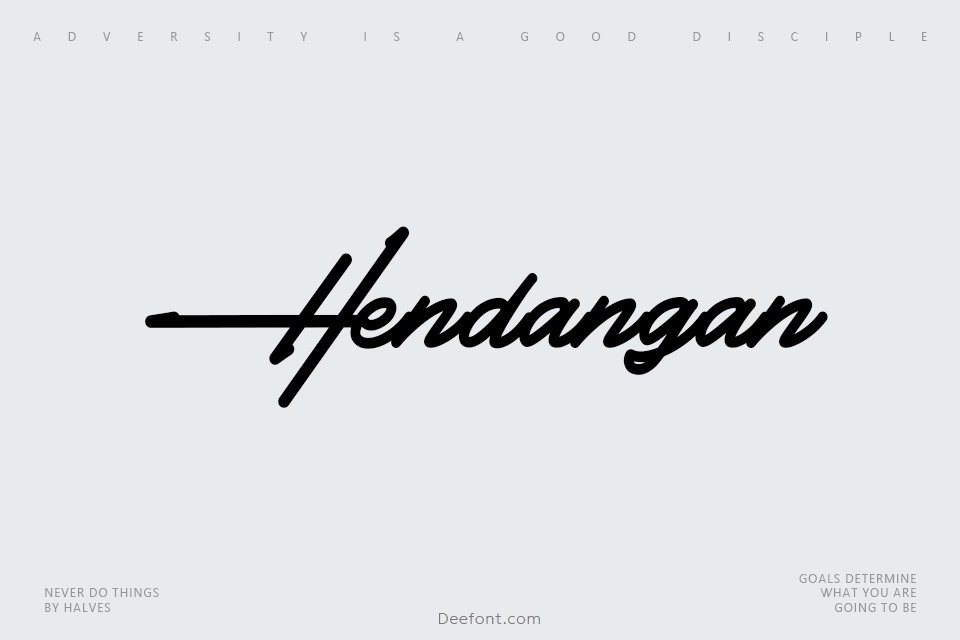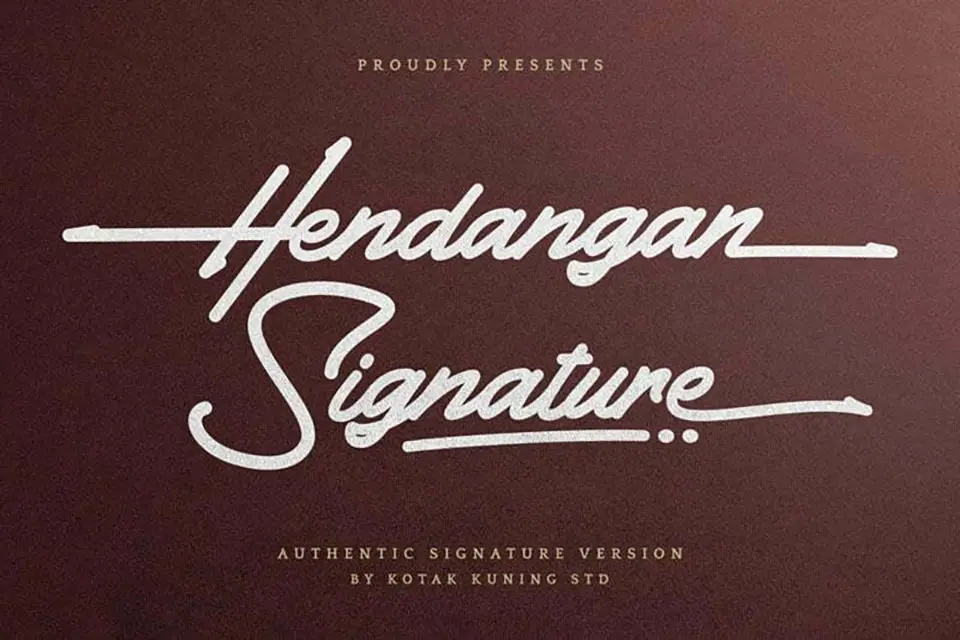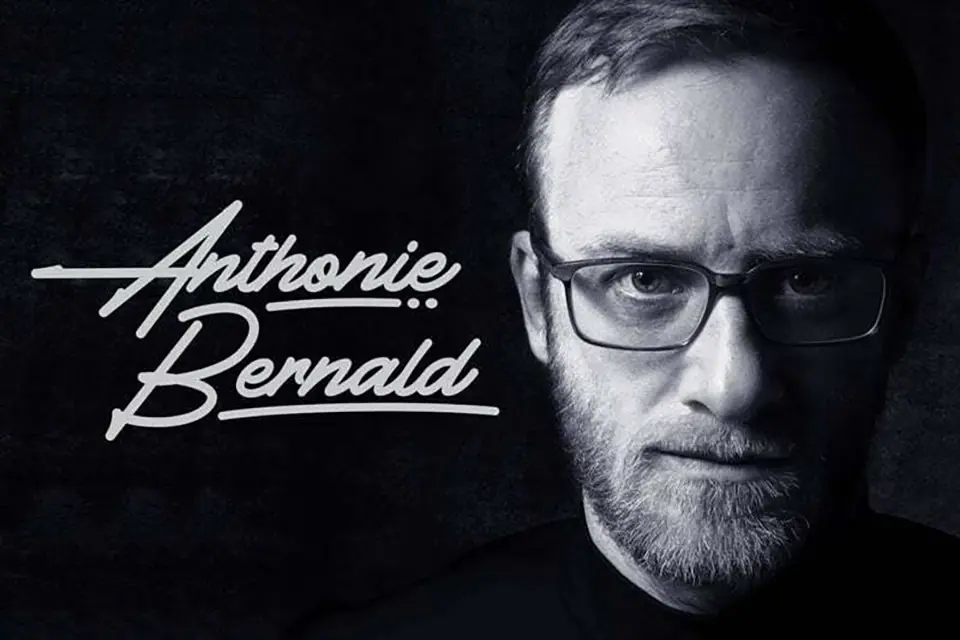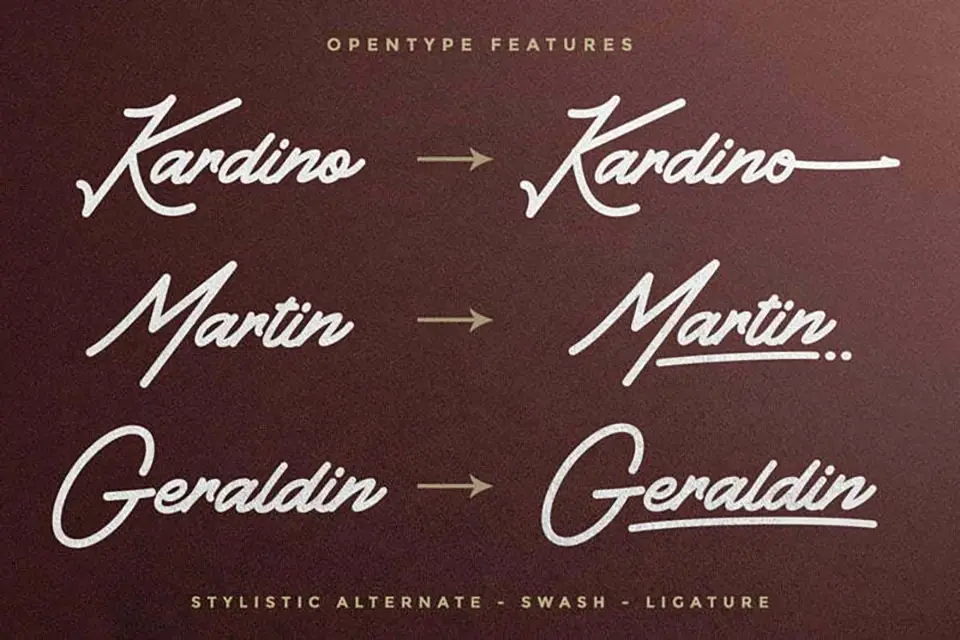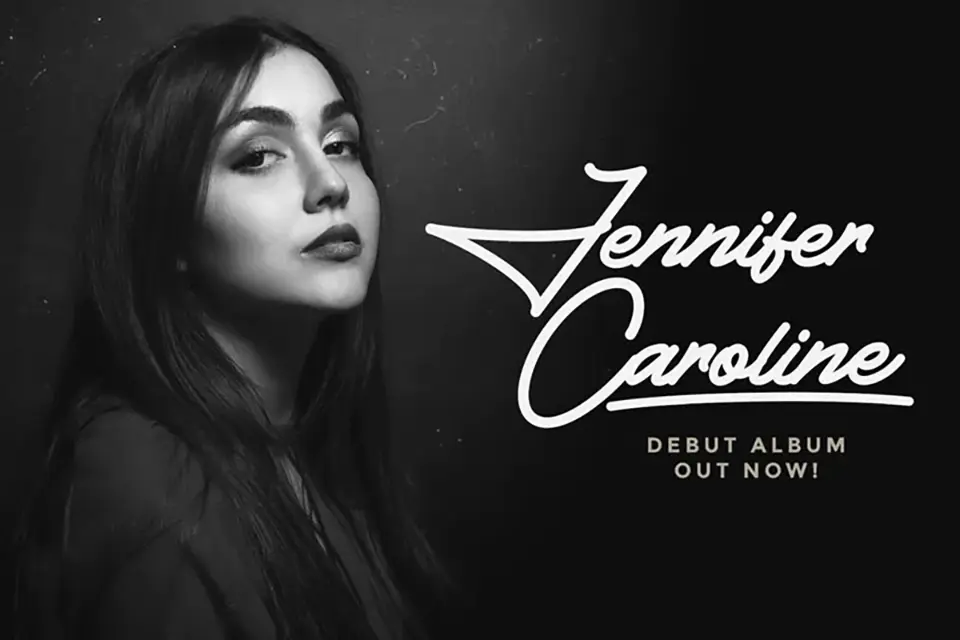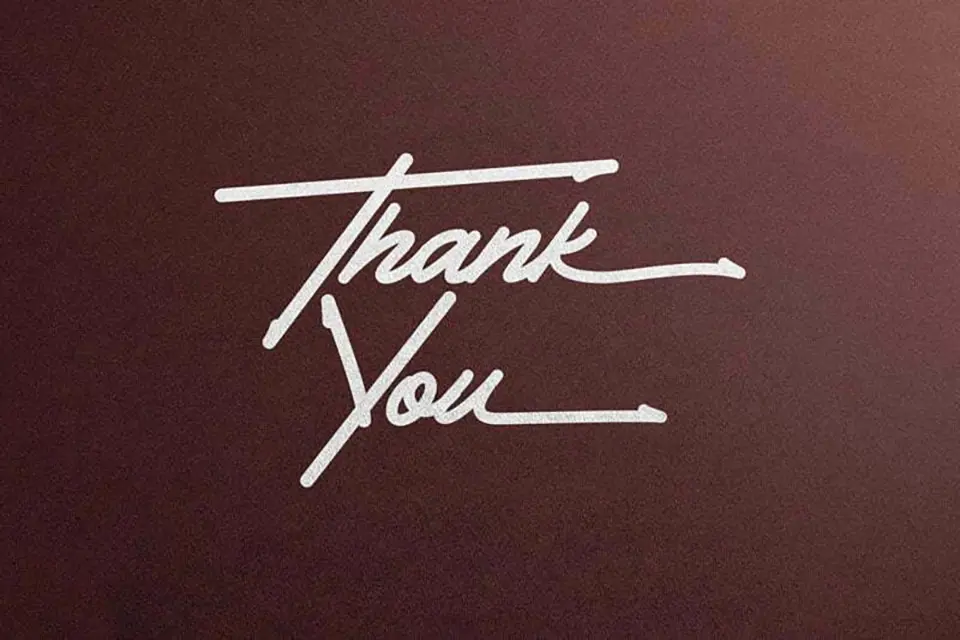
Hendangan Font
Hendangan is an elegant handwritten script font designed by Kotak Kuning Studio, featuring smooth curves and flowing lines with a charming and playful vibe. Perfect for logos, branding, invitations, stationery, and social media graphics, this modern script font brings personality and sophistication to any design project with its natural handwriting aesthetic.